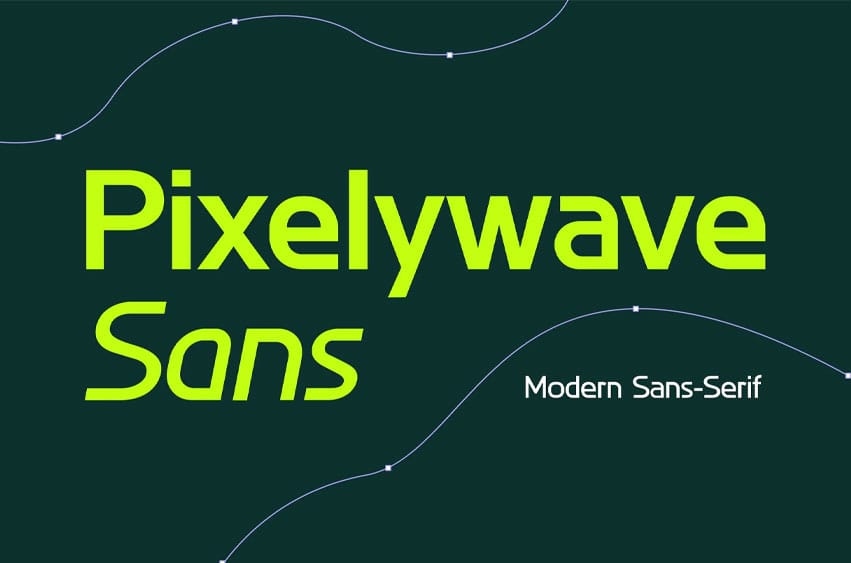
Pixelywave Font Sans Modern sans-serif font Family that feels beautiful, classy, elegant, and modern. This font is perfectly suited for a wide variety of projects, such as signatures, stationery, logos, weddings, typography quotes, magazine or book covers, website headers, branding, packaging design, and more. Also, fashion-related branding or editorial design displays both masculine and feminine qualities.
- Regular
- Italic
- Medium
- Medium Italic
- Semi Bold
- Semi Bold Italic
- Bold
- Bold Italic
- Extra Bold
- Extra Bold Italic